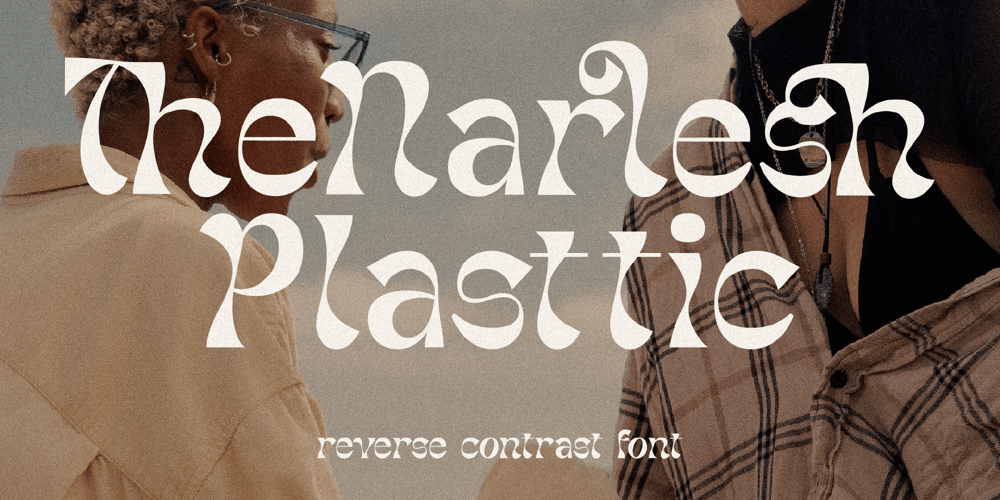
Narlesh Plasttic
Narlesh Plasttic font
Narlesh Plasttic Font Family was designed by Heru Utama Putra and published by Letterena Studios. Narlesh Plasttic contains 2 styles and family package options. Narlesh Plasttic is a funky and cool display font. Its groovy vibe is perfect for creating unique designs.